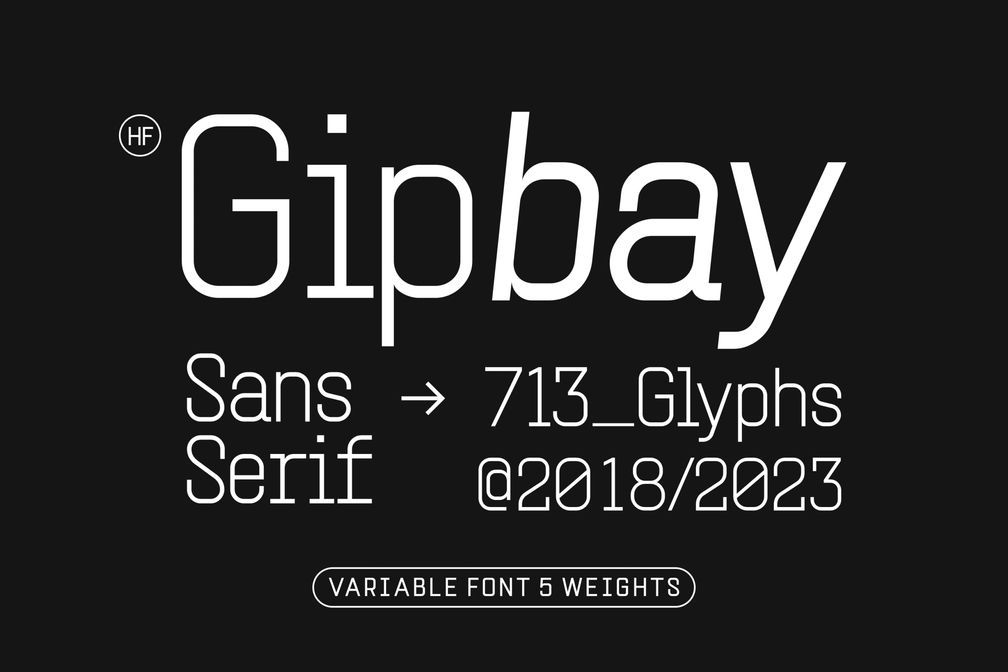
HF Gipbay
HF Gipbay is a monospaced sans serif font with high character and giving a contemporary or modern impression. Available in 5 weights, namely thin, light, regular, medium and bold, as well as in 2 styles normal and Italian.
The font is suitable for design posters, logos, headlines on websites/landing pages, logos, branding, etc.